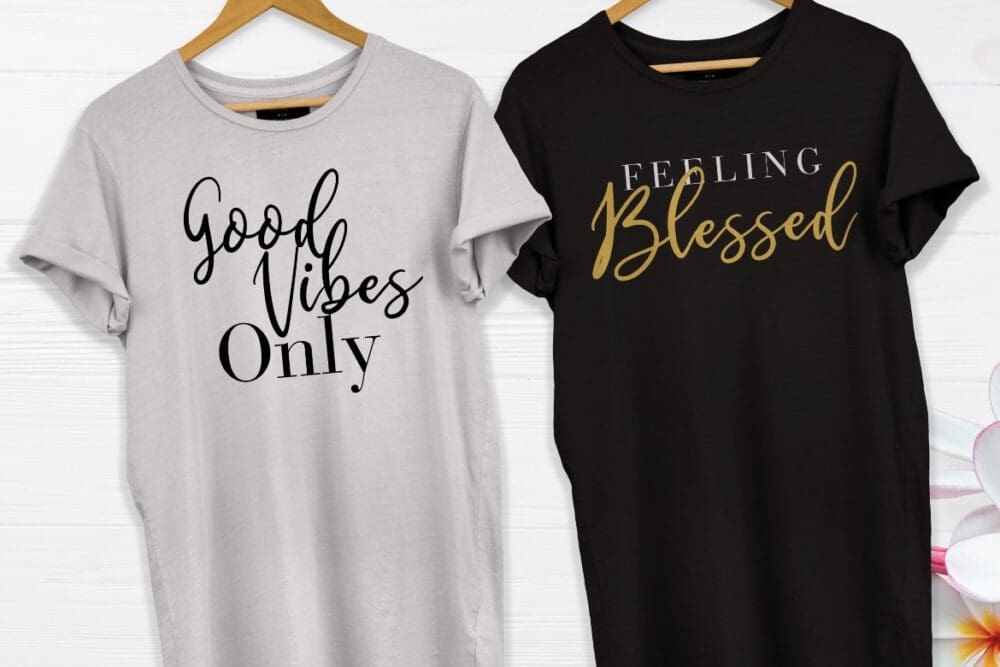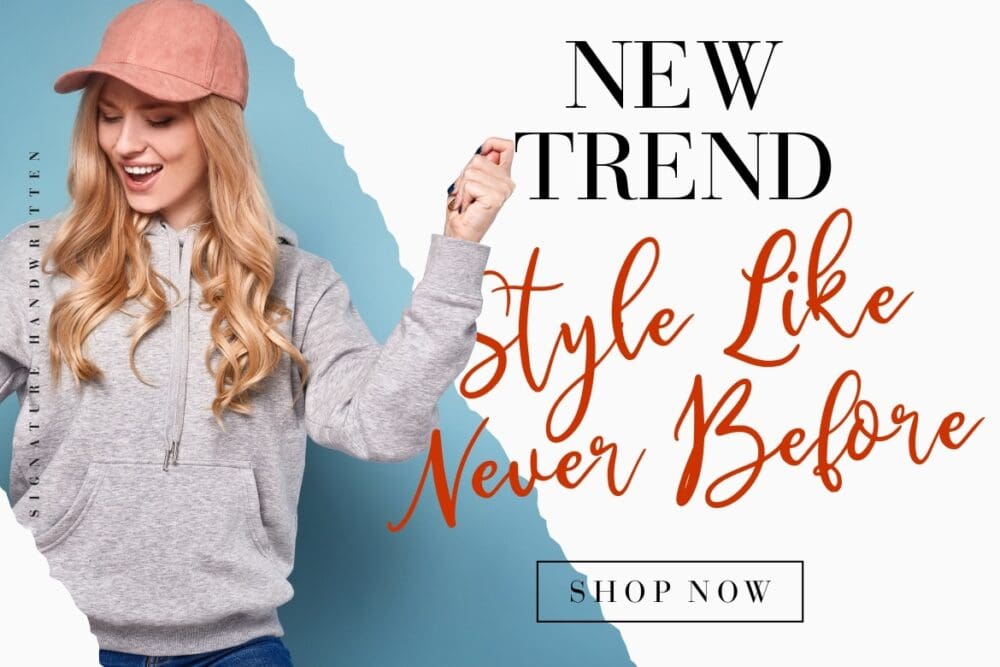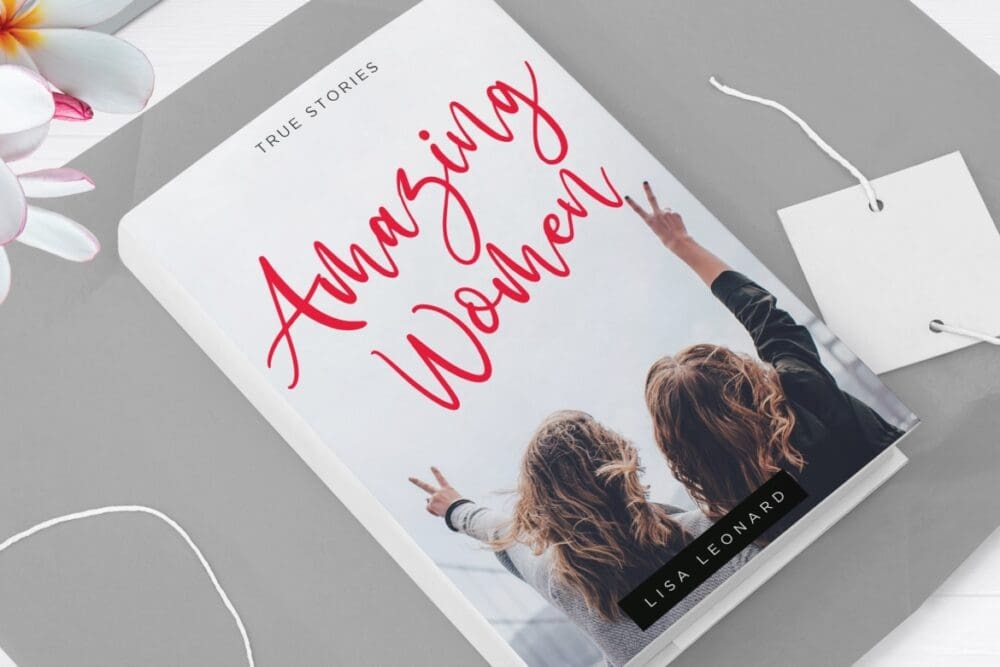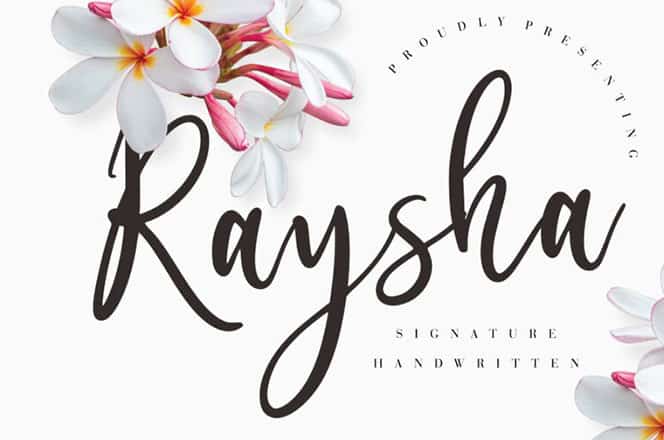
Raysha Signature Handwritten Font
Raysha Signature Handwritten Font with natural movement sketch. Raysha is perfect for branding projects, logos, wedding designs, advertisements, watermarks, invitations, stationery, and any projects that need handwriting taste.